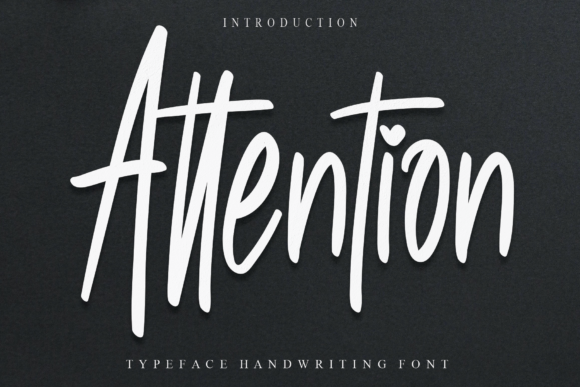
The Ultimate Guide to Attention Font: Elevate Your Designs with Style
I’ll never forget the time I was working on a project for a trendy boutique hotel, and I just couldn’t find the right font to capture their laid-back, yet stylish vibe. The client wanted something that would make their poster and flyer designs pop, but everything I tried seemed either too generic or too over-the-top. That’s when I stumbled upon the Attention font, and let me tell you, it was love at first sight! 😍
An Honest Review of Attention Font
So, what makes Attention font so special? Here’s the lowdown:
- ✨ Relaxed and stylish: Attention font has a unique, laid-back vibe that’s perfect for designs that need a bit of personality.
- ✅ Highly versatile: This font can work for everything from posters and flyers to social media graphics and even branding materials.
- 💯 Easy on the eyes: The clean lines and smooth curves make it a joy to read, even at smaller sizes.
Of course, no font is perfect, and Attention has a few quirks to keep in mind:
- 🤔 Limited formal applications: While Attention is amazing for casual designs, it might not be the best fit for more formal projects, like corporate reports or academic papers.
- ⚠️ Be mindful of legibility: At very small sizes or with certain color combinations, some letters might become a bit tricky to read.
A Practical Guide to Using Attention Font
- Experiment with OpenType features like ligatures and stylistic alternates to add some extra flair to your text.
- Dive into the glyphs panel to explore alternative characters and create unique text styles.
The Backstory of Attention Font
While the origins of Attention font are shrouded in mystery, it’s easy to imagine a designer with a passion for fashion and typography creating something so stylish and versatile. Perhaps they were inspired by the urban landscapes, coffee culture, and street art that make cities so vibrant. Whatever the story, Attention font has become a go-to choice for designers looking to add a bit of cool to their projects.
Q: What makes Attention font so unique?
A: Attention font stands out with its relaxed, fashionable vibe and smooth, clean lines. It’s perfect for designs that need a bit of personality without being too over-the-top.
Q: How does Attention font compare to other handwritten fonts?
A: Attention font has a more relaxed, modern feel compared to traditional handwritten fonts. It’s also highly versatile and easy to read, making it a great choice for a wide range of designs.
Q: Can I use Attention font for body text?
A: While Attention font is beautiful, it’s best suited for headlines, titles, and short paragraphs. For longer body text, you might want to choose a font with better legibility at smaller sizes.